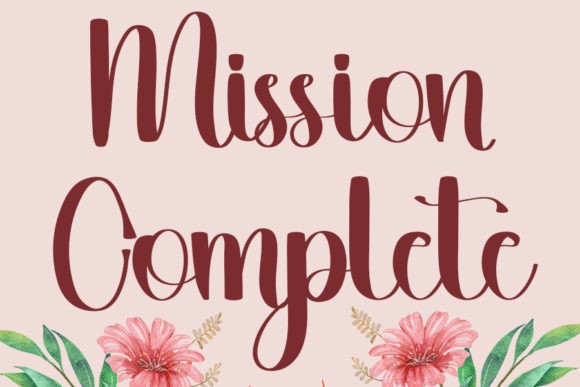
Aminah Font
Aminah Script Font is a chic and trendy handwritten font. Whether you’re looking for fonts for Instagram or calligraphy scripts for DIY projects, this font will turn any creative idea into a true piece of art!
The font with a unique and elegant design style. A font suitable for all aspects of design and writing suitable for Instagram, quotes, clothing design, clothing, apparel, logo design, children’s clothing, t-shirts, weddings, gifts, parcels, youtube banners and more. By using this font your business will stand out in the market. Apart from that, this font is simple, modern style font, handwritten and easy to use with all your needs. With this latest font model, your brand and font business will move forward.